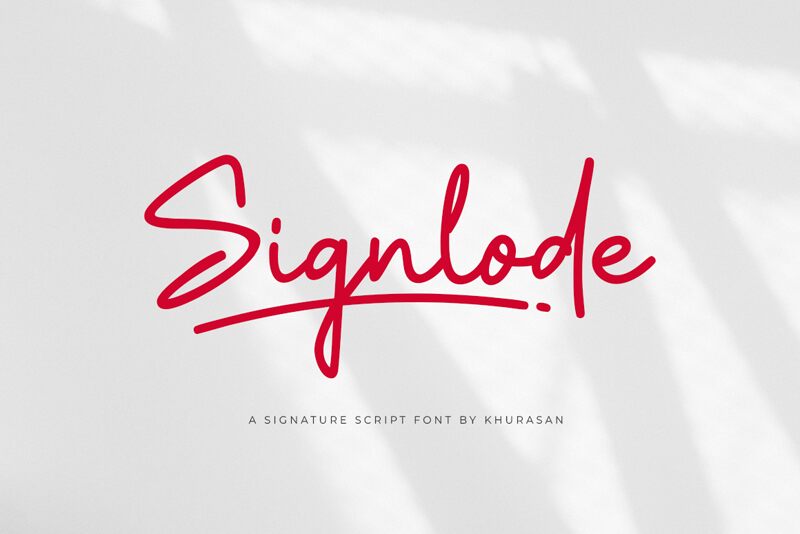
Signlode, crafted by the talented Khurasan, presents a captivating handwritten signature font with a semi-light weight.
Its graceful curves and flowing strokes exude an air of elegance, making it perfect for wedding invitations, boutique logos, and luxury brand identities. This versatile typeface adds a personal touch to photography watermarks, social media graphics, and book covers. Signlode effortlessly elevates fashion magazines with its sophisticated appeal or adds a touch of refinement to beauty blogs and lifestyle websites.